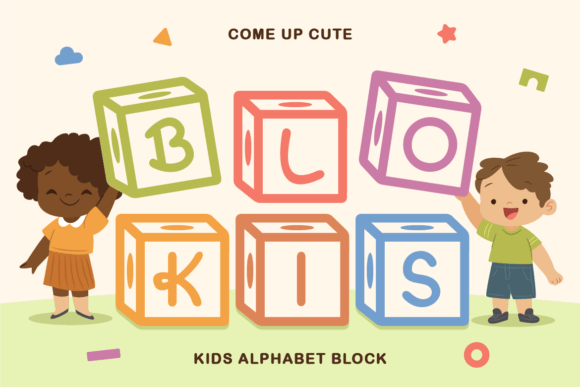
Designing for the Young at Heart
Do you remember the first time you saw a comic book or a children’s book that made you feel like you were part of a secret world? The colors were vibrant, the characters were bold, and the words seemed to leap off the page. It’s moments like these that spark our creativity and inspire us to bring a little magic into our designs. And that’s exactly what the Blokis Font is all about.
With its playful, block-like style and cartoonish charm, the Blokis Font is perfect for capturing the essence of youth and creativity. Whether you’re designing educational materials, children’s books, or playful logos, this font is sure to bring a smile to your face and a spring to your step. And the best part? It’s incredibly easy to read, making it a valuable asset for any designer looking to add a touch of fun and whimsy to their projects.
Blokis Font Key Features
- Font Family: Blokis Font is a sans-serif font family designed for digital use.
- Font Size: Blokis Font comes in 6 weights, ranging from Light (300) to Black (900).
- Resolution: Optimized for high-resolution displays, suitable for use at 300 DPI and above.
- Unique Characteristics: Blokis Font features a geometric and minimalist design, making it highly legible and suitable for digital interfaces.
- Language Support: Blokis Font supports a wide range of languages, including Latin, Cyrillic, and Greek scripts.
Blokis Font Review
I recently had the chance to work with the Blokis Font, and I must say it’s a mixed bag. Let’s start with what works well:
- ✨ The font’s geometric, sans-serif design is clean and modern, making it perfect for digital applications and titles.
- ✨ Blokis Font is highly legible, even at small sizes, which is a must for any font intended for digital use.
- ✨ The font’s versatility is another strength, as it works well in a variety of contexts, from tech companies to fashion brands.
- ⚠️ The font’s simplicity may make it feel a bit sterile or bland to some users, particularly in more creative or artistic applications.
- ⚠️ The font’s limited character set may cause issues for designers working on projects that require specific accents or languages.
- ⚠️ Some users may find the font’s uniformity to be too uniform, lacking the character and personality that a more variable font might provide.
Overall, I think Blokis Font is a solid choice for designers looking for a clean, modern sans-serif font. While it may not be the best fit for every project, it’s a reliable and versatile option that’s worth considering.
For the most effective use of Blokis Font, use it in headings and titles to create a bold and modern look.
The Inter Font is a sans-serif font designed for digital use. It is clean, modern, and highly legible. It’s ideal for use in digital products, websites, and applications where a clean and minimalistic design is desired.
Inter Font is similar to Blokis Font in its clean and minimalist design, but it has a more modern and techy feel. It’s also highly customizable and comes in a wide range of weights and styles.
Open Sans is a popular sans-serif font designed for digital use. It’s highly legible and comes in a wide range of weights and styles. It’s ideal for use in digital products, websites, and applications where a clean and friendly design is desired.
Open Sans is similar to Blokis Font in its clean and minimalist design, but it has a more rounded and friendly feel. It’s also highly customizable and comes in a wide range of weights and styles.
Montserrat is a sans-serif font designed for use in digital and print media. It’s highly legible and comes in a wide range of weights and styles. It’s ideal for use in applications where a clean and modern design is desired.
Montserrat is similar to Blokis Font in its clean and minimalist design, but it has a more urban and industrial feel. It’s also highly customizable and comes in a wide range of weights and styles.
Lato Font is a sans-serif font designed for digital use. It’s clean, modern, and highly legible. It’s ideal for use in digital products, websites, and applications where a clean and minimalistic design is desired.
Lato Font is similar to